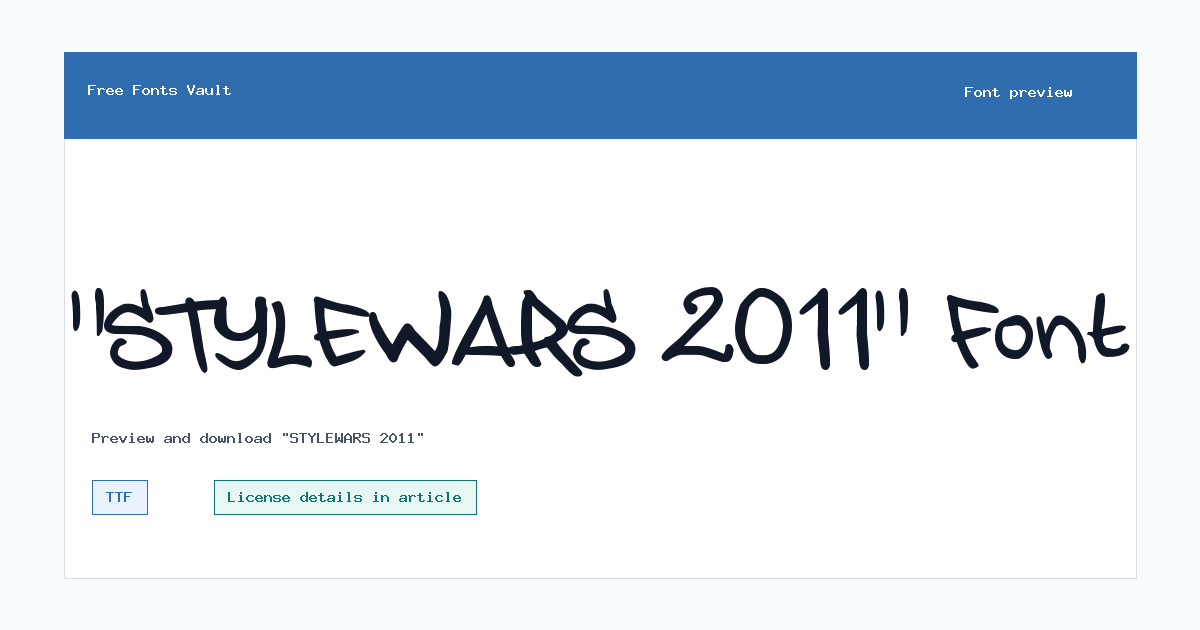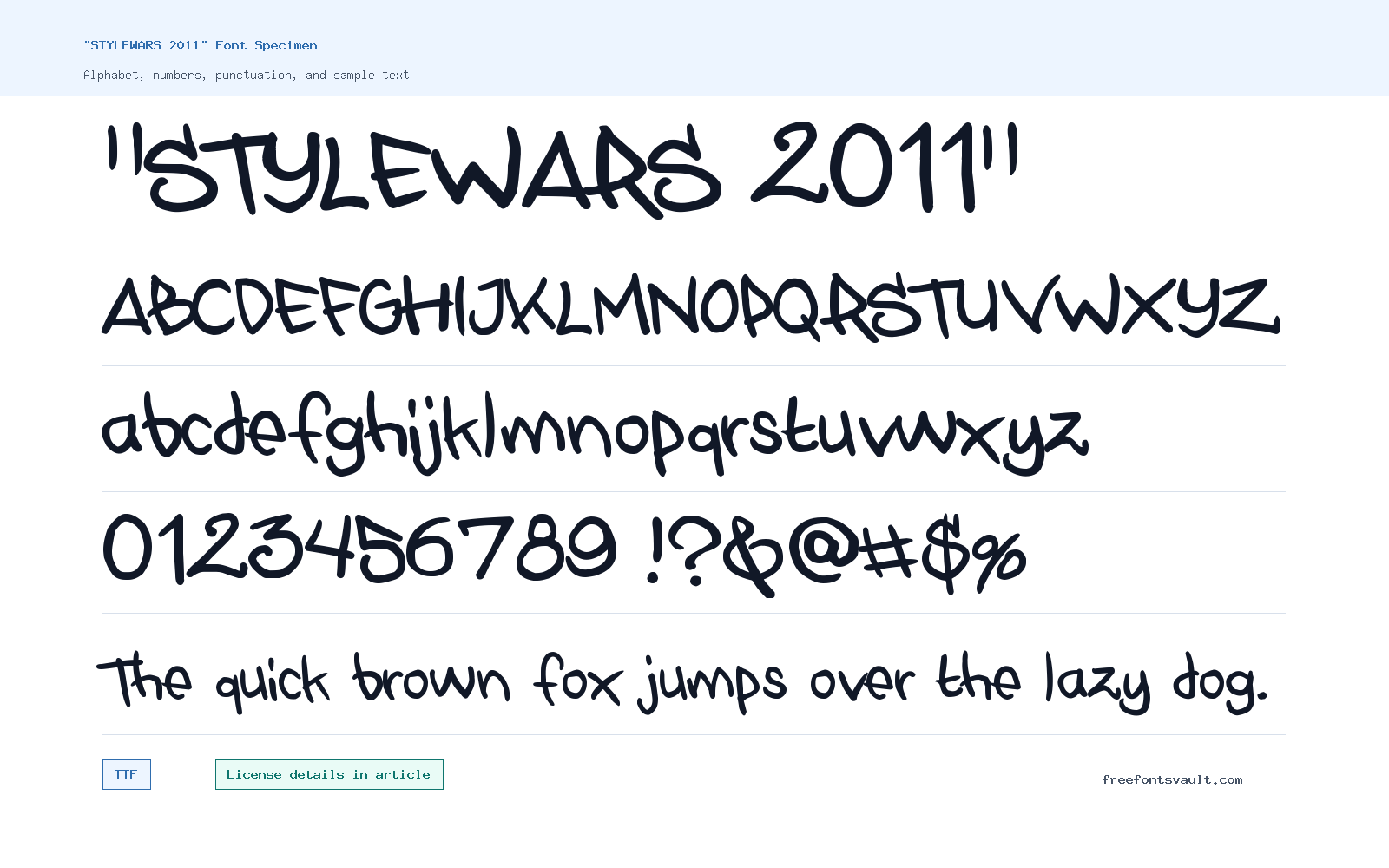
"STYLEWARS 2011"
STYLEWARS 2011 is a display font with a strong, urban feel that works best when the text is short, bold, and meant to stand out.
About STYLEWARS 2011
STYLEWARS 2011 is offered as a regular TTF font file. Its name points toward a street-style or graffiti-inspired direction, so it is best treated as a display face rather than a long-reading text font. Use the preview tool to check how its letter shapes behave in uppercase words, short titles, numbers, and punctuation before downloading.
This kind of font is most useful when the design needs impact in a small amount of space. Try it for posters, music artwork, stickers, event graphics, game-style headings, social images, or bold logo mockups. For cleaner layouts, pair it with a simple sans serif for body text so STYLEWARS 2011 can stay focused on headings and accent words.
- Display-focused look suited to short, high-impact text
- Posters, cover art, stickers, and event graphics
- Short headings, nameplates, social posts, and bold title treatments
Test your exact words in the preview before downloading. Display fonts with strong shapes can look great in short phrases but may become harder to read in sentences, small sizes, or dense layouts. Use generous margins around STYLEWARS 2011 so the lettering can feel intentional instead of cramped. High contrast works best: dark type on a light background, light type on a dark background, or a single accent color with plenty of empty space. Test short combinations such as WA, ST, AR, 20, and 11 before exporting artwork, because display letterforms can close up in small thumbnails. If you build a poster or social graphic, let this font handle the headline and use a neutral companion font for dates, credits, prices, and longer explanations. Before exporting or sharing artwork, check the font at thumbnail size as well as full size, because street-style lettering often reads differently once compressed by social platforms.
Is STYLEWARS 2011 good for body text?
It is better for short display text such as titles, posters, and graphic accents. Use a simpler font for paragraphs or small text.